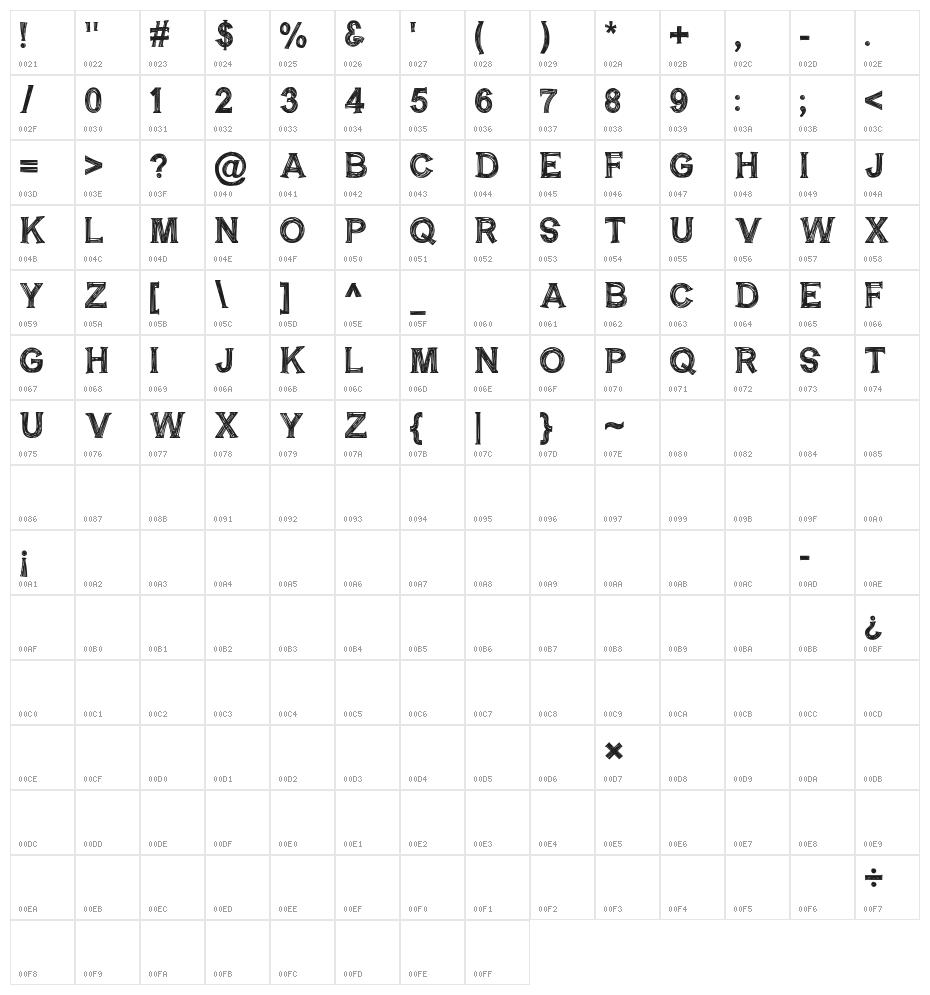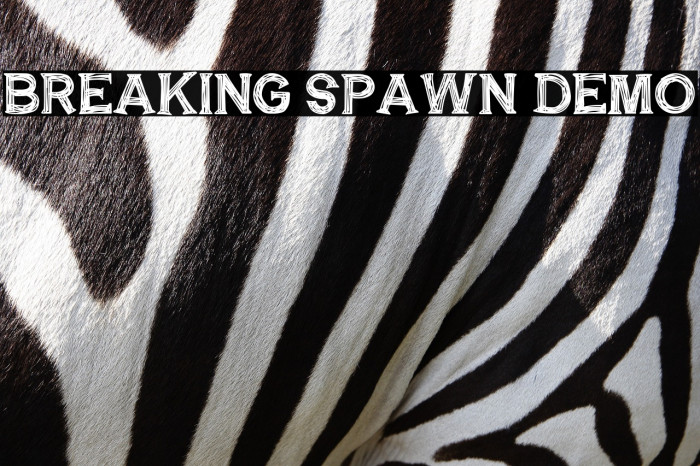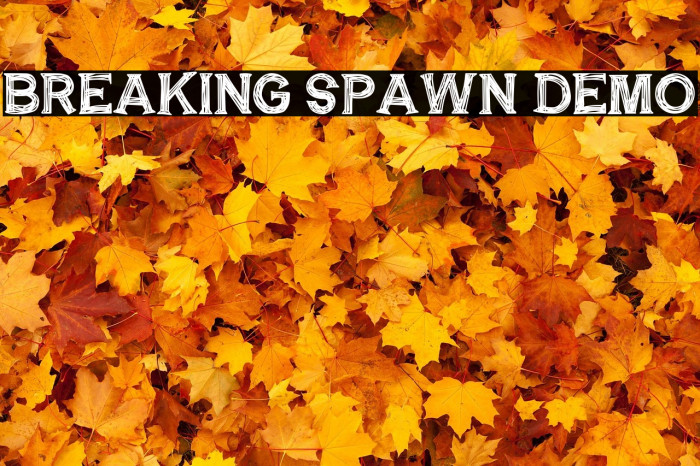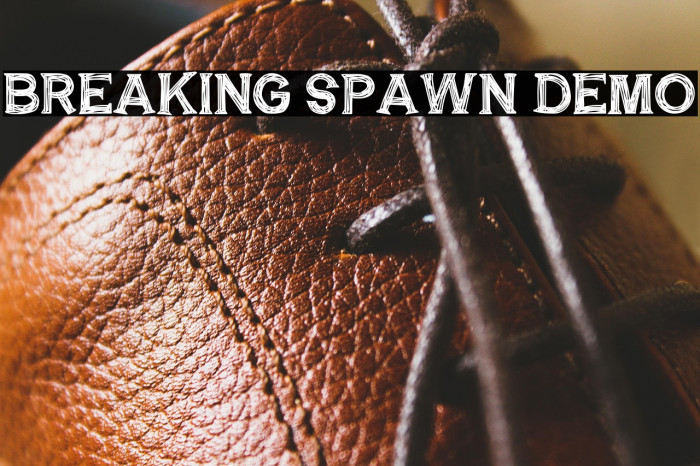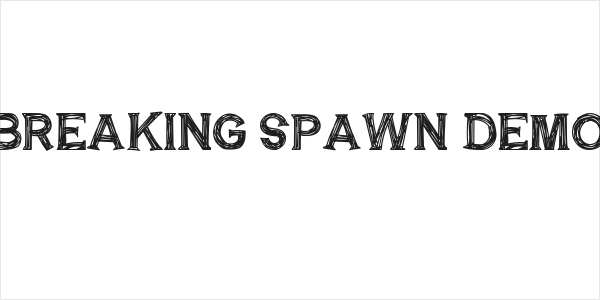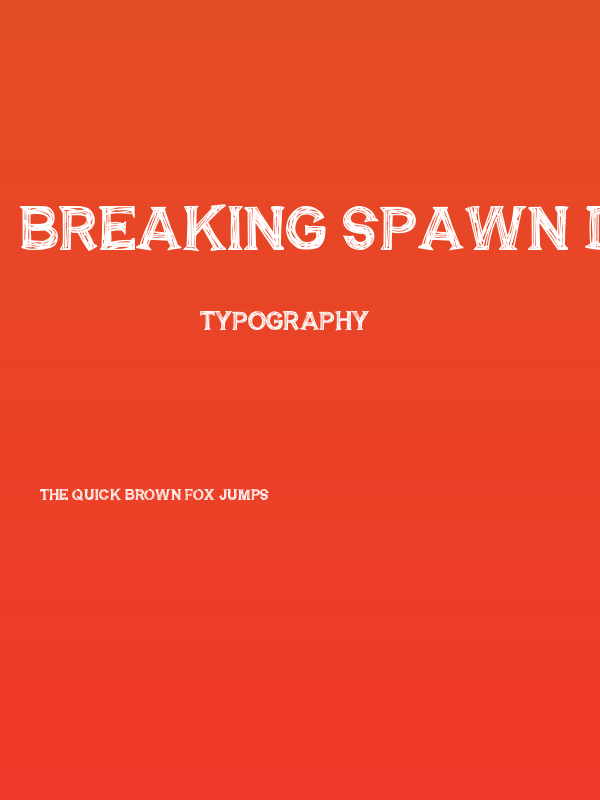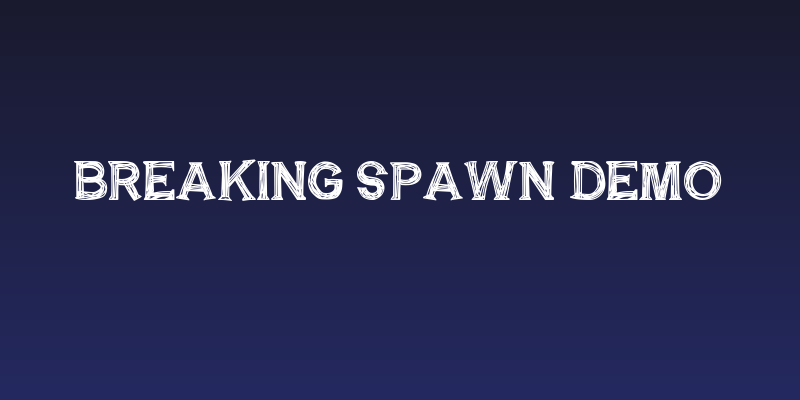
BREAKING SPAWN DEMO Font
BREAKING SPAWN DEMO Description
This font features a bold, sketch-like appearance with a hand-drawn aesthetic. Each character is outlined with a rough, textured stroke that gives it a dynamic and energetic feel. The letters are uppercase and have a consistent height, while the numbers and special characters maintain the same stylistic approach. The design is reminiscent of comic book lettering, with an emphasis on boldness and expressiveness. The irregular lines and shading within each character add a sense of movement and creativity, making it ideal for projects that require a playful or artistic touch.
| Proposed Projects | Ideal for comic books, graphic novels, posters, and creative branding projects. |